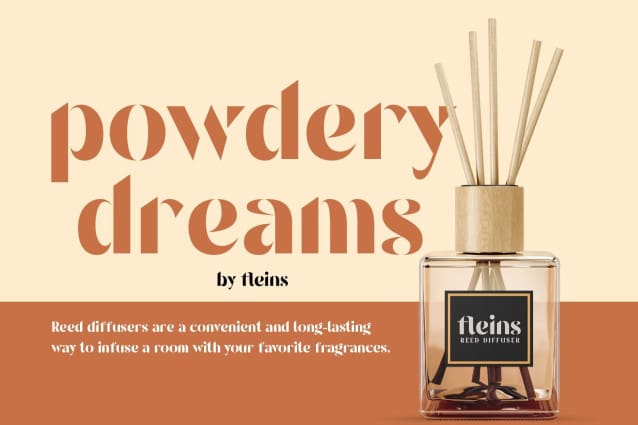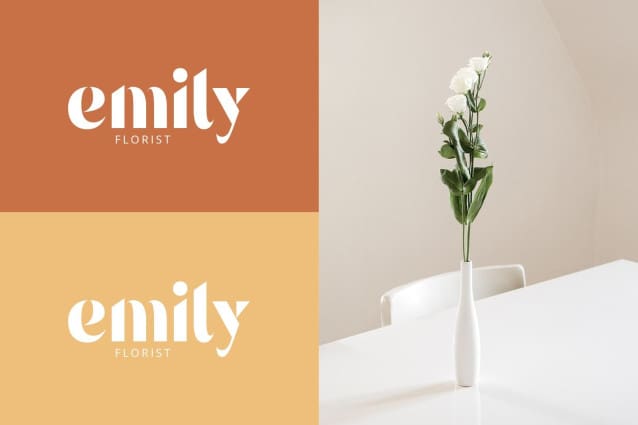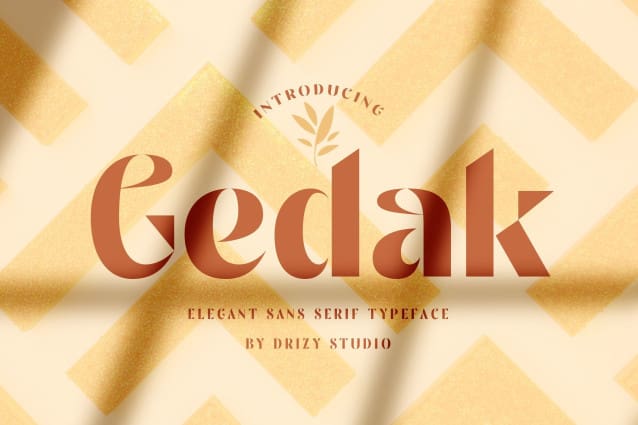
Gedak Font
Gedak Font is a sans serif elegant font from Drizy Studio. Offering all the basic styles you will need for a beauty and feminime project theme.